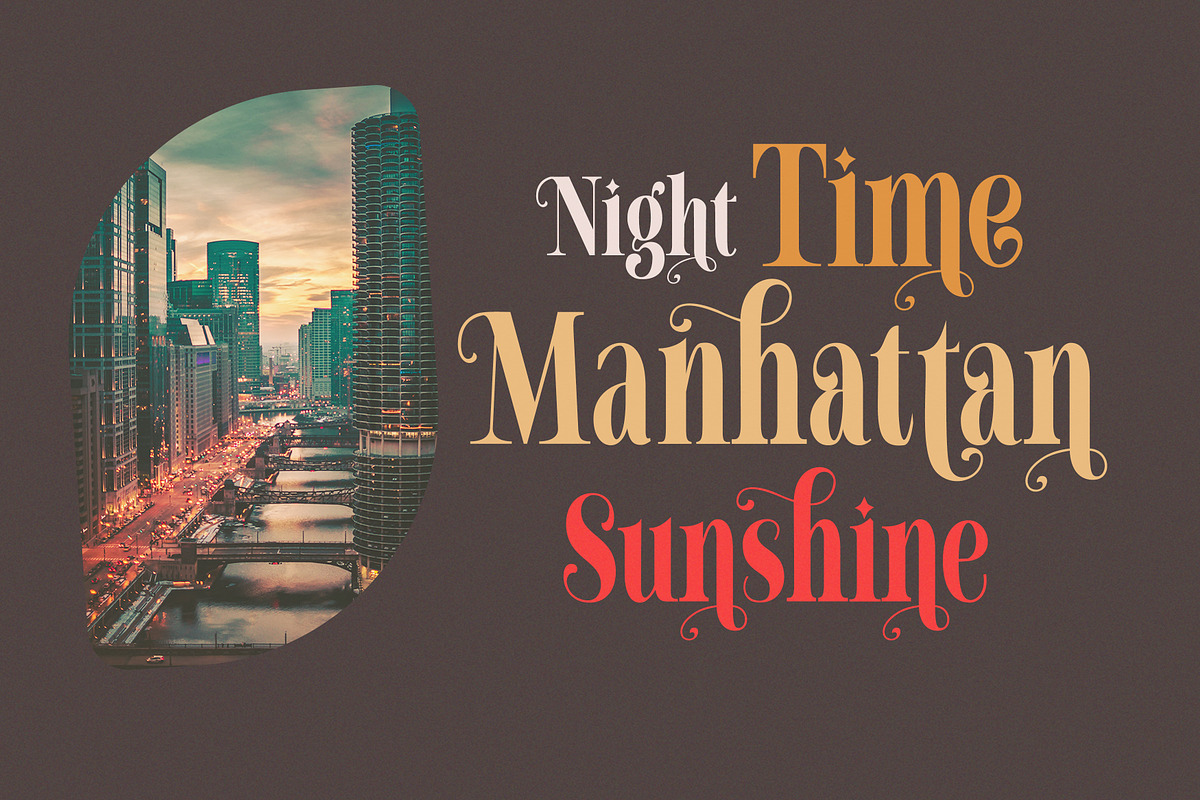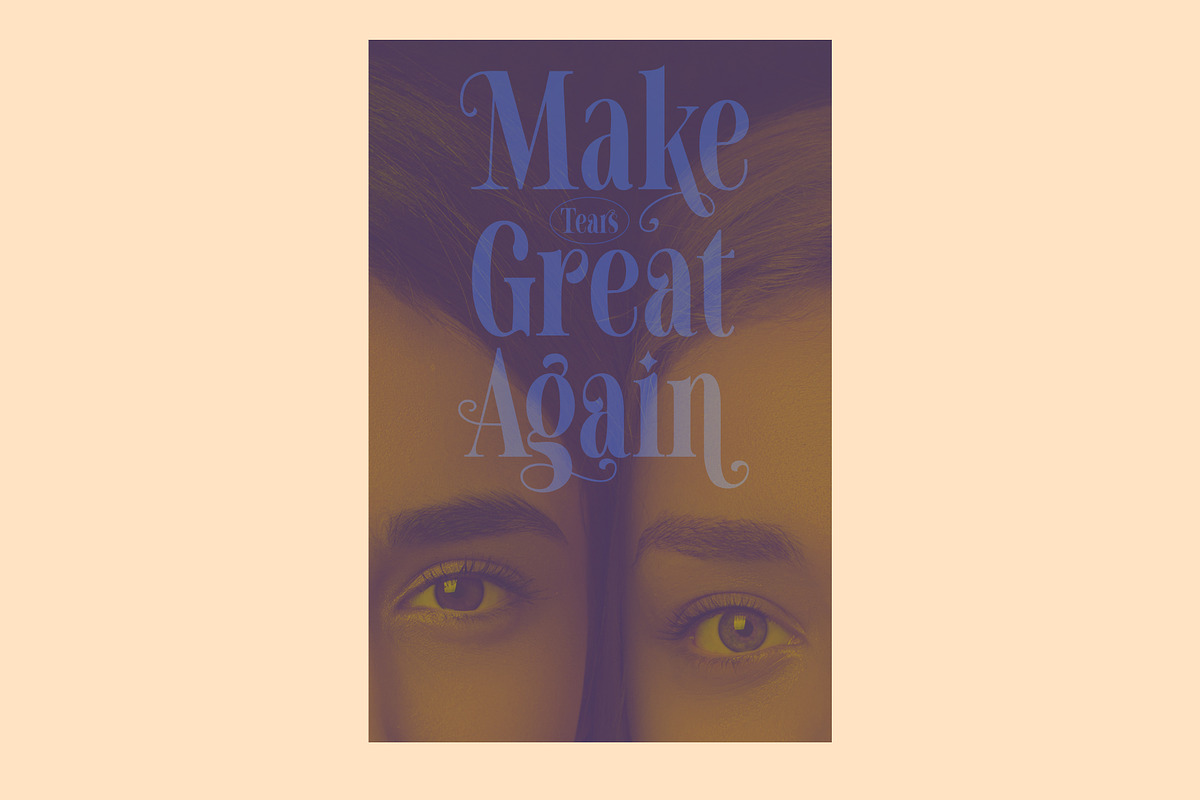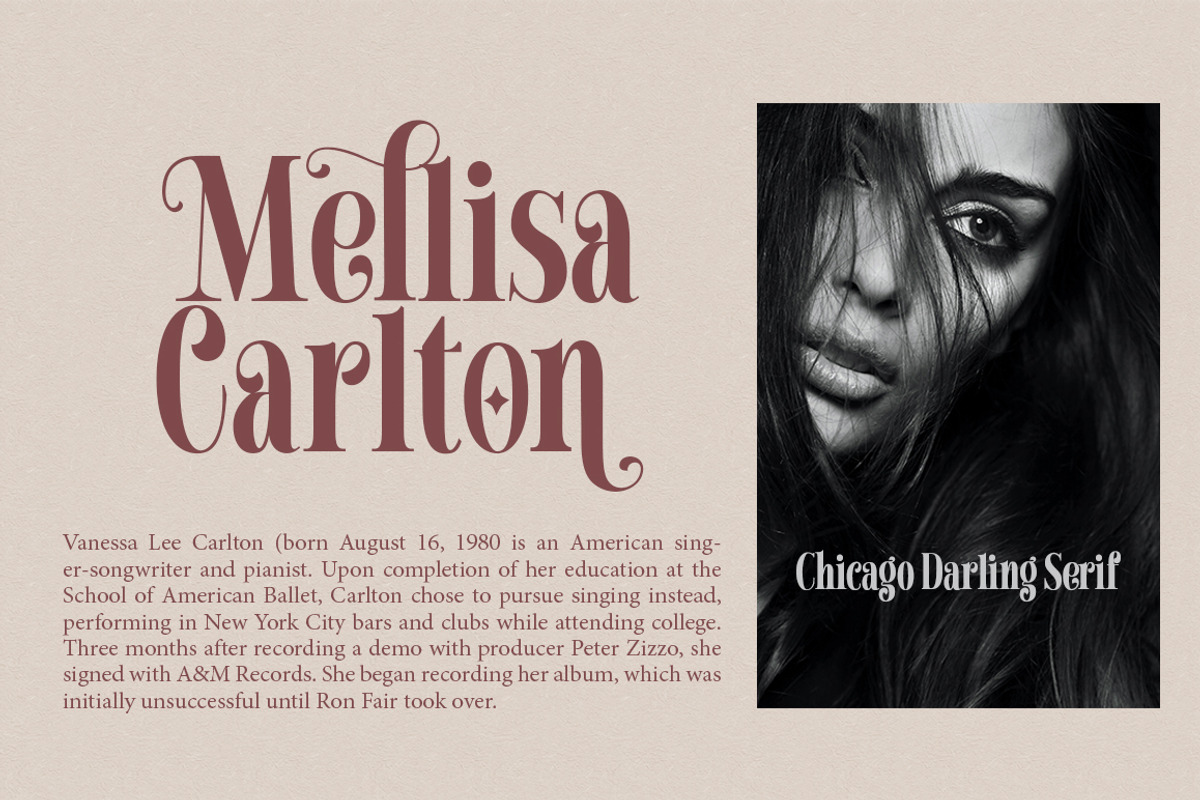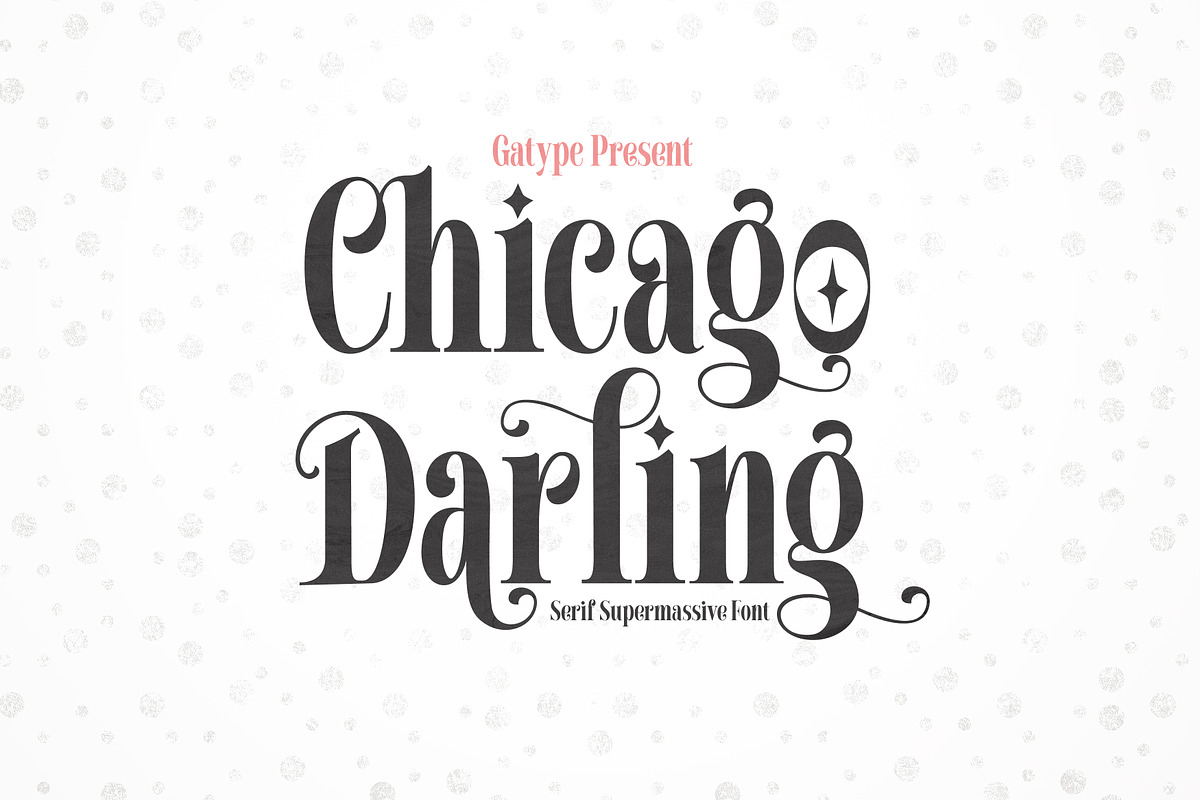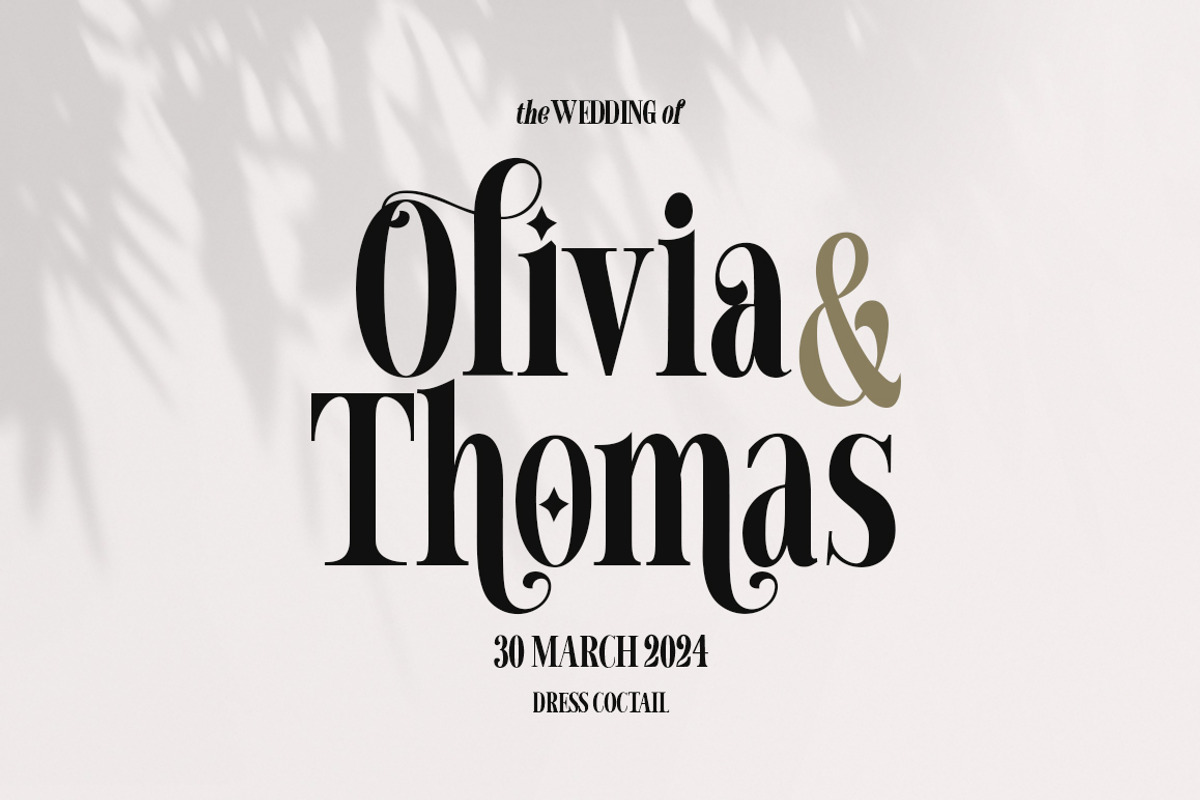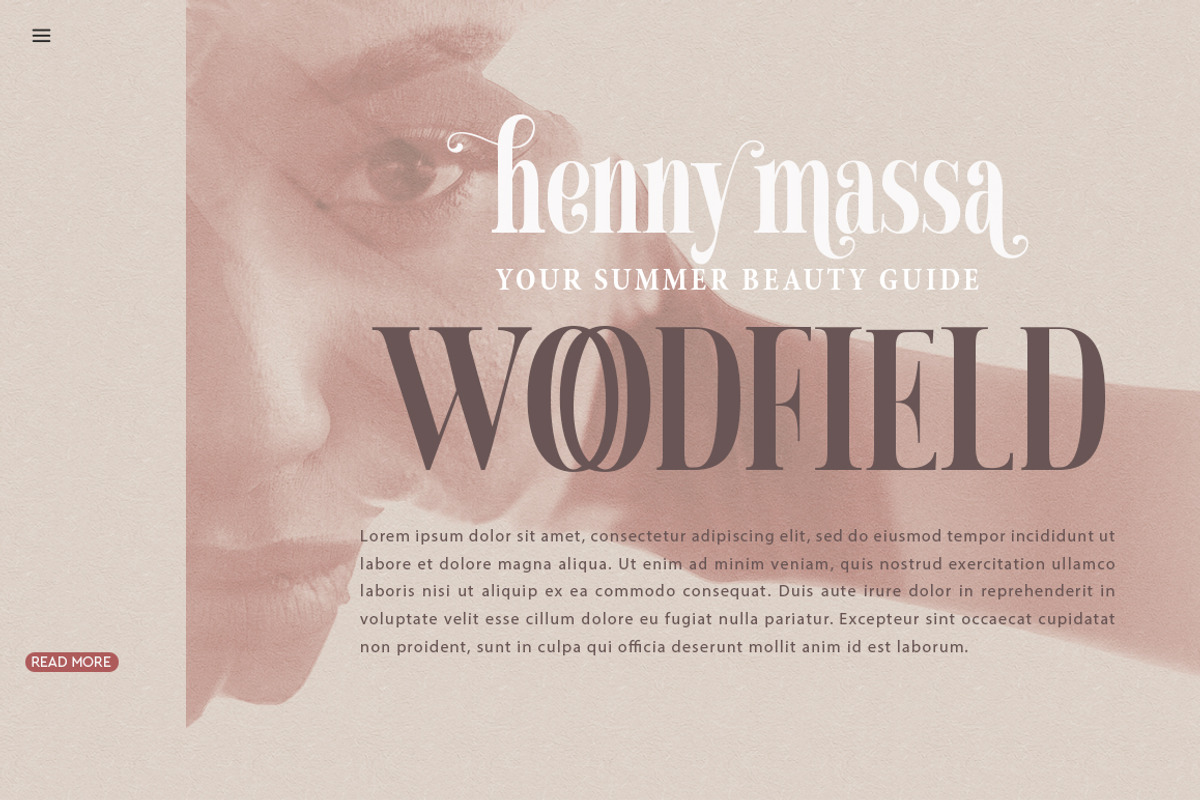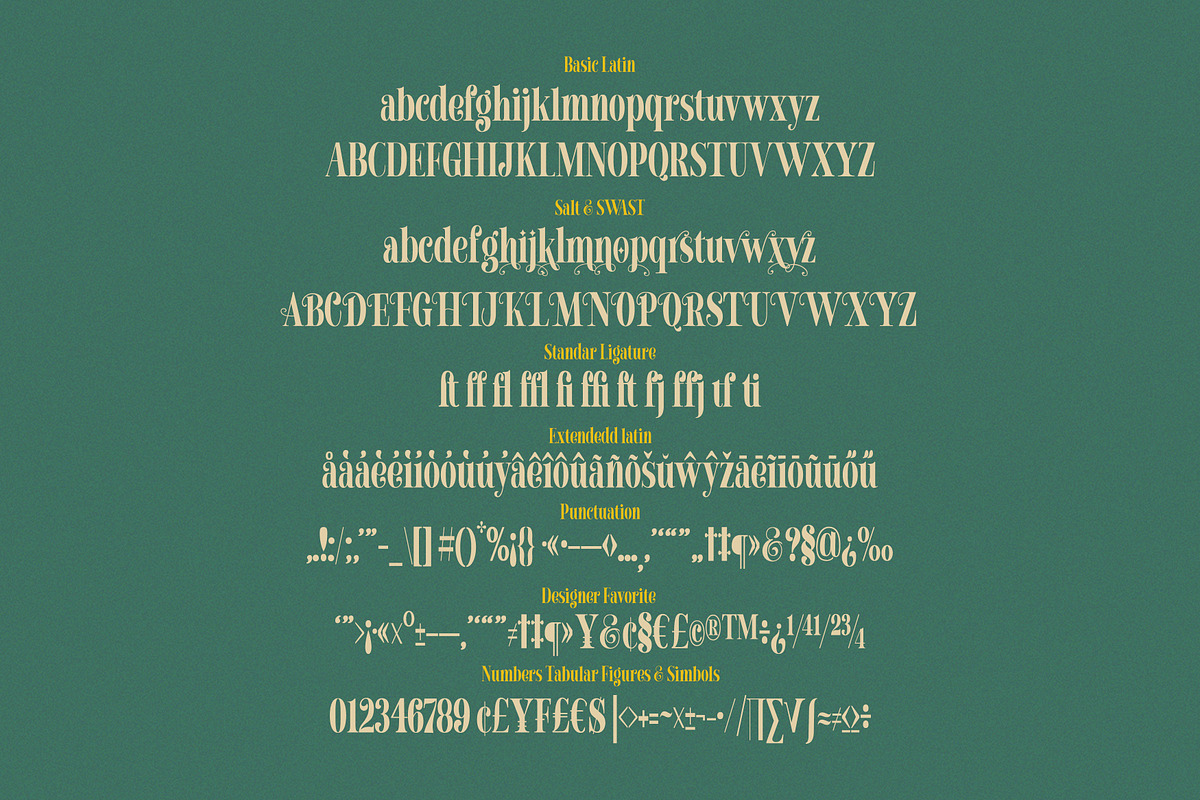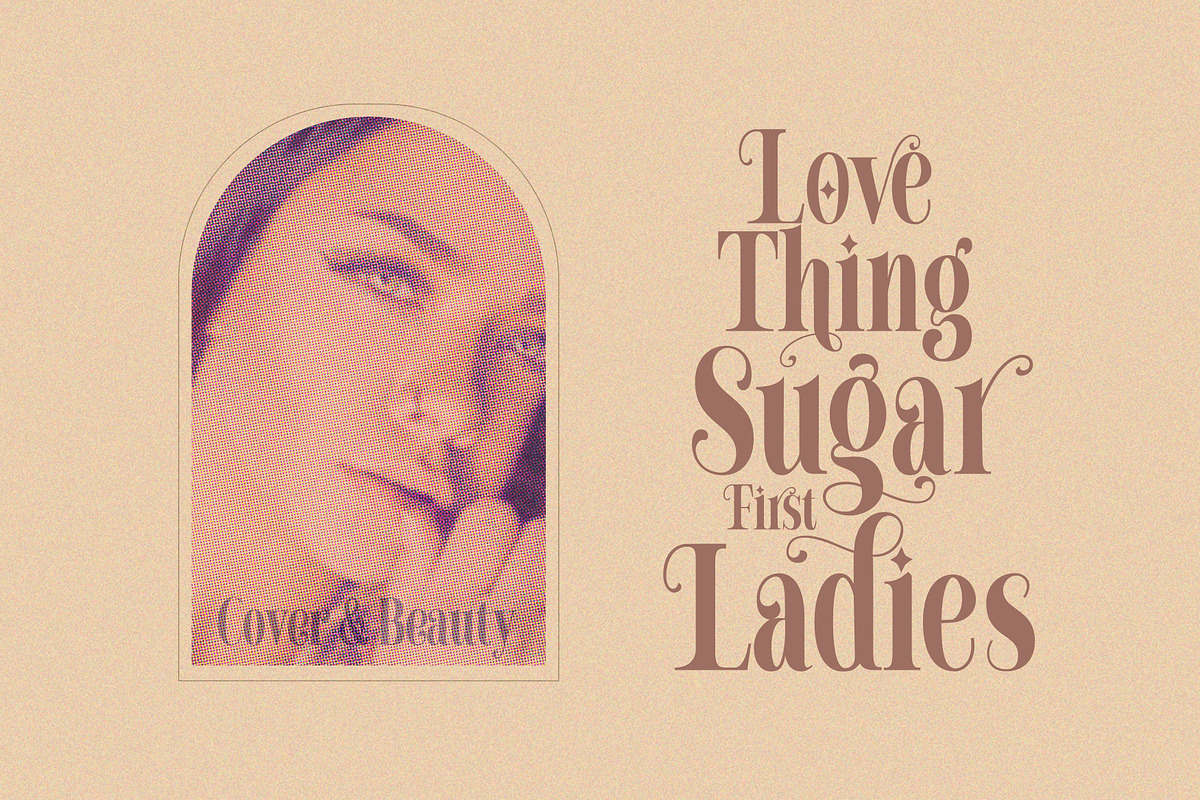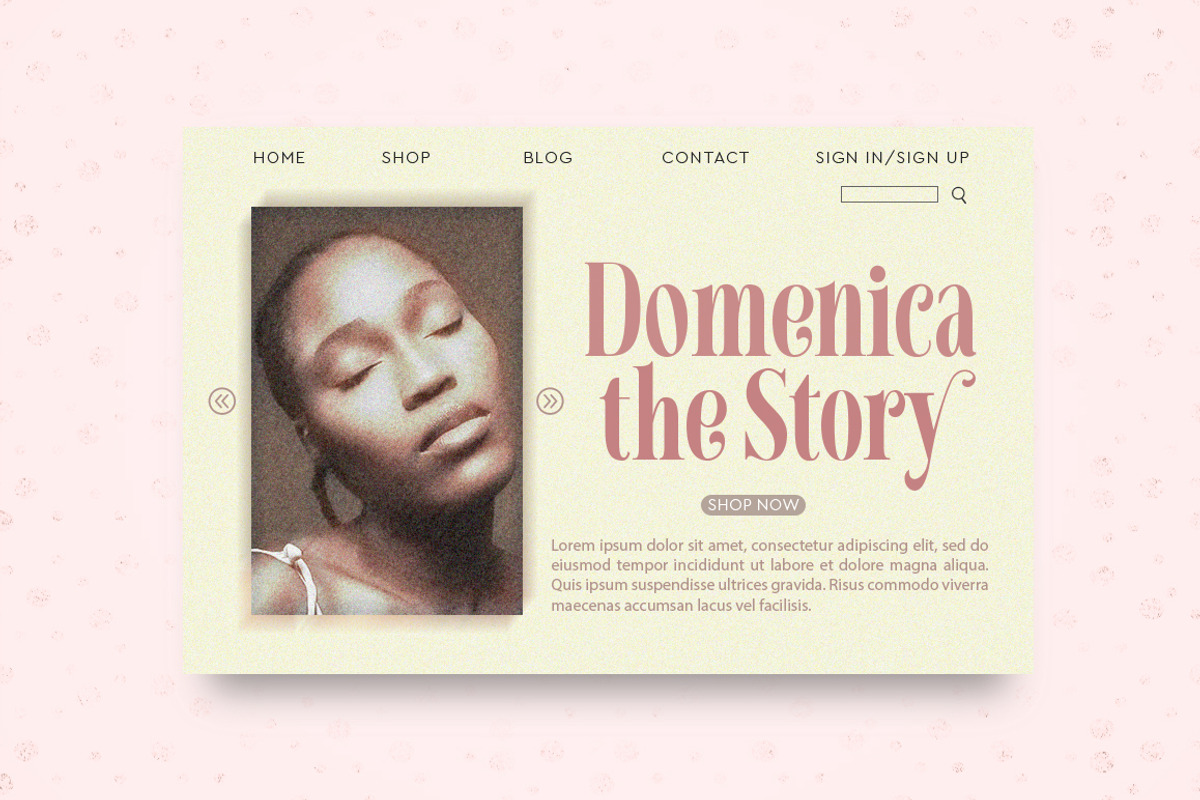
Chicago Darling Serif
Chicago Darling is a modern and classy minimalist design typography that features more alternative characters and lots of ties. Lifestyle friendly fonts with on-trend designs. The Chicago Darling is designed to be versatile, to match all your designs.
This alternative makes the Chicago Darling very versatile. You can design beautiful, elegant and diverse typographic elements with it. It's perfect for logos, lettering artwork, t-shirt designs, editorial illustrations to name a few.